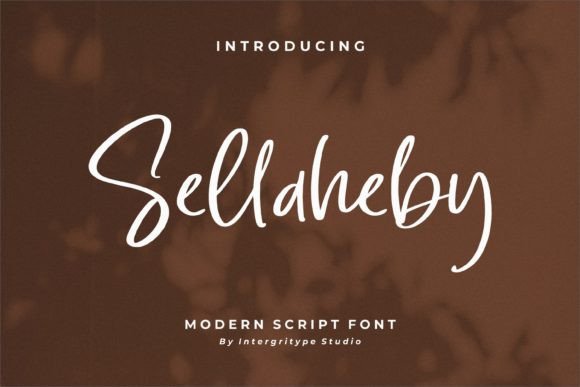
Introducing Sellaheby - The Exquisite Script Font for Every Creative Endeavor
Unleash the power of expression with Sellaheby, a breathtaking script font crafted to elevate your designs to new heights. With its captivating curves and elegant lines, Sellaheby is the perfect choice for those seeking a touch of sophistication and allure in their projects.
Sellaheby: A Font Born from Passion
Crafted with meticulous care and attention to detail, Sellaheby is more than just a font; it's an embodiment of artistic flair and creative exploration. Integritypestudio, the visionary designers behind this masterpiece, poured their heart and soul into creating a font that resonates with emotions and speaks to the soul.
A Versatile Masterpiece for Limitless Creativity
Whether you're designing logos that leave an indelible mark or creating branding projects that exude professionalism, Sellaheby is your ultimate companion. Its versatility extends to homeware designs, where it adds a touch of elegance to everyday objects.
From product packaging that captivates attention to mugs adorned with inspiring quotes, Sellaheby is the perfect choice for adding a touch of sophistication to your designs. Create posters that make a statement, shopping bags that turn heads, or T-shirts that exude individuality.
Elevate Book Covers, Business Cards, and Invitations with Sellaheby
Sellaheby's charm extends to book covers, where it sets the tone for literary adventures waiting to be discovered. Design business cards that command attention or create invitation cards that hint at the grandeur of the event to come.
Greeting cards adorned with Sellaheby's graceful strokes convey heartfelt sentiments with a touch of elegance. Create labels that elevate your products to luxury status or add a personal touch to your photography with Sellaheby's elegant watermarks.
Sellaheby: Your Key to Design Excellence
Unlock the full potential of your creativity with Sellaheby, a font that transforms ordinary designs into extraordinary works of art. Its wide range of applications makes it an indispensable tool for designers seeking to create designs that capture hearts and imaginations.
Step into the world of Sellaheby today and embark on a creative journey where beauty and elegance reign supreme. Let your designs bloom with the enchanting touch of this exquisite script font.